Ever wondered where that bold, slab-serif “college look” comes from? It goes way back to mid‑19th century Ivy League sportswear. Harvard’s baseball team embroidered an “H” on their flannel jackets in 1865, making them the first varsity-style letter sweaters.
By the 1930s, these grew into the now-iconic wool-and-leather varsity jackets we recognize today analogshift.com.
Those bold, blocky letterforms were designed to be die-cut for jackets and signs, and they quickly became shorthand for athletic pride and academic tradition
Since then, the varsity-style font has grown far beyond campus borders. Today, you’ll find college-inspired typefaces on everything from retro sportswear and gym logos to startup branding and TikTok thumbnails.
The Best College Fonts for 2025
Each typeface below nods to that legacy and then goes its own way, either dialing up the grit with brush textures or streamlining the slab shapes for a sleeker look. Let’s dive in.
01. Freshman College – Octagonal Slab Serif Font
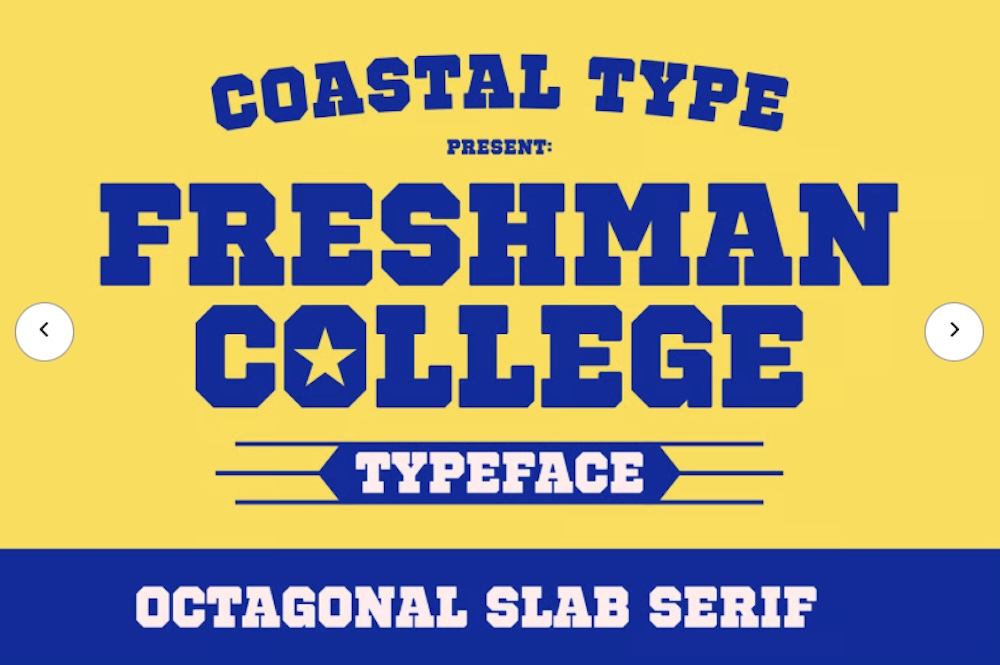
Freshman College feels like it belongs on a varsity banner flapping in the wind during homecoming. With its octagonal slab serifs and geometric strength, it nails that bold, campus-authentic look without relying on clichés. The angular cuts and precise corners give it a bit more attitude than your average athletic font, making it a standout for team branding, vintage-style patches, or any design that needs to channel big energy and bigger school pride.
02. Union College – A Sporty Display Font
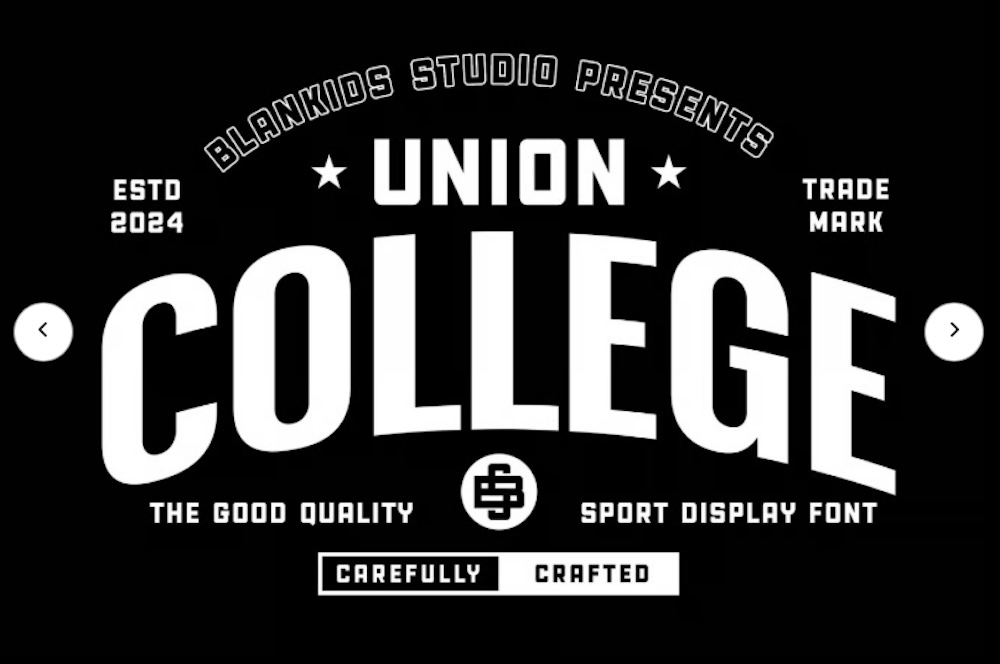
Union College is as sporty as they come. It’s thick, loud, and made to be seen from the top row of the bleachers to the back of a sweatshirt. The tight letterforms pack a punch without sacrificing legibility, giving headlines and logos an instant shot of adrenaline. It leans into its display font DNA with confidence and speed, perfect for sports posters, pep rally flyers, or bold typographic statements.
03. Bullsy College – A Classic Sport Font
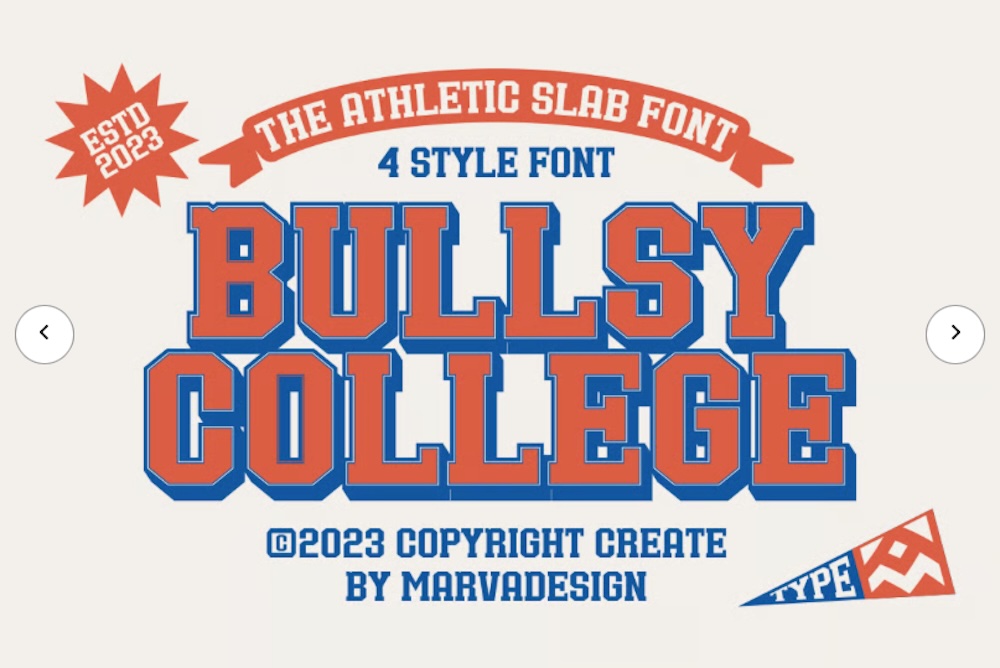
Bullsy College hits that perfect midpoint between vintage athletics and polished design. The soft, rounded slab serifs give it an old-school charm, like something lifted from a retro college pennant or classic baseball jersey. But it’s not stuck in the past. Instead, it’s clean, confident, and easy to pair with modern layouts. Ideal for branding that needs to feel trustworthy, established, and just a little nostalgic without losing its edge.
04. Atlanta College Font
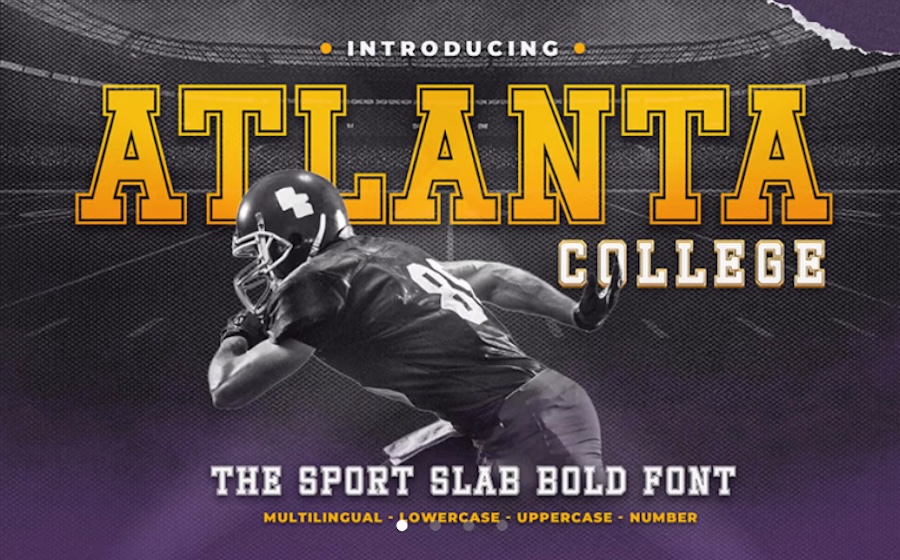
Atlanta College keeps things classic with blocky, all-caps letters and just enough curve to feel collegiate without being stiff. It’s great for team gear, posters, or any layout that needs bold school pride on a budget.
05. College – An Athletic Font Family
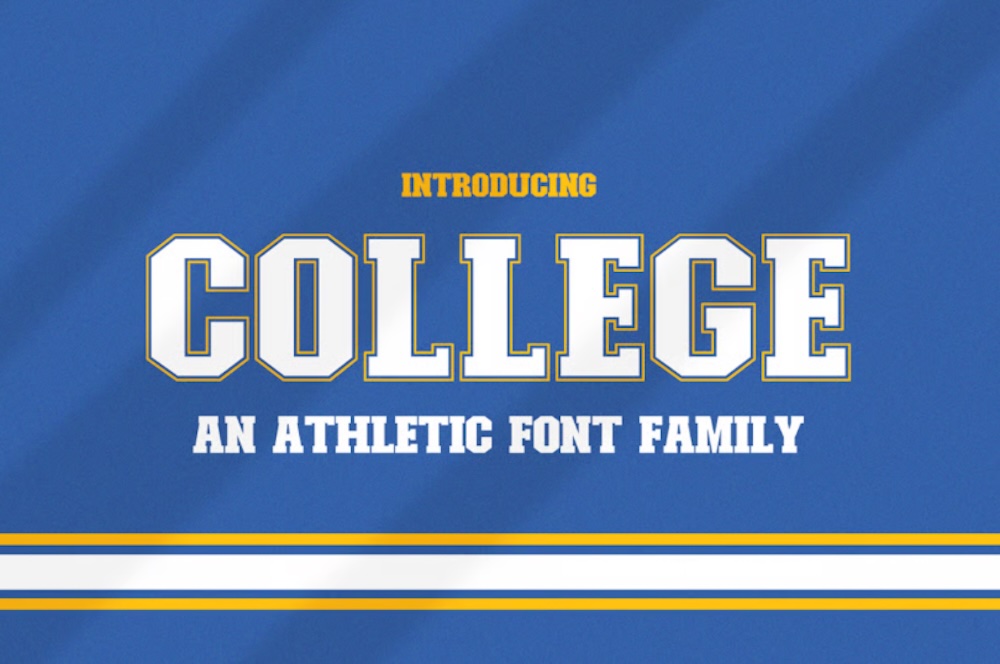
The College font family brings the full varsity treatment with multiple weights and a no-nonsense, squared-off style. Its modular build gives it great adaptability across formats including headers, labels, logos, or monograms all come out looking crisp and confident. There’s nothing flashy here, just the visual equivalent of a perfectly fitted letterman jacket. Dependable, legible, and unmistakably tied to traditional American collegiate design.
06. Scholarly Font
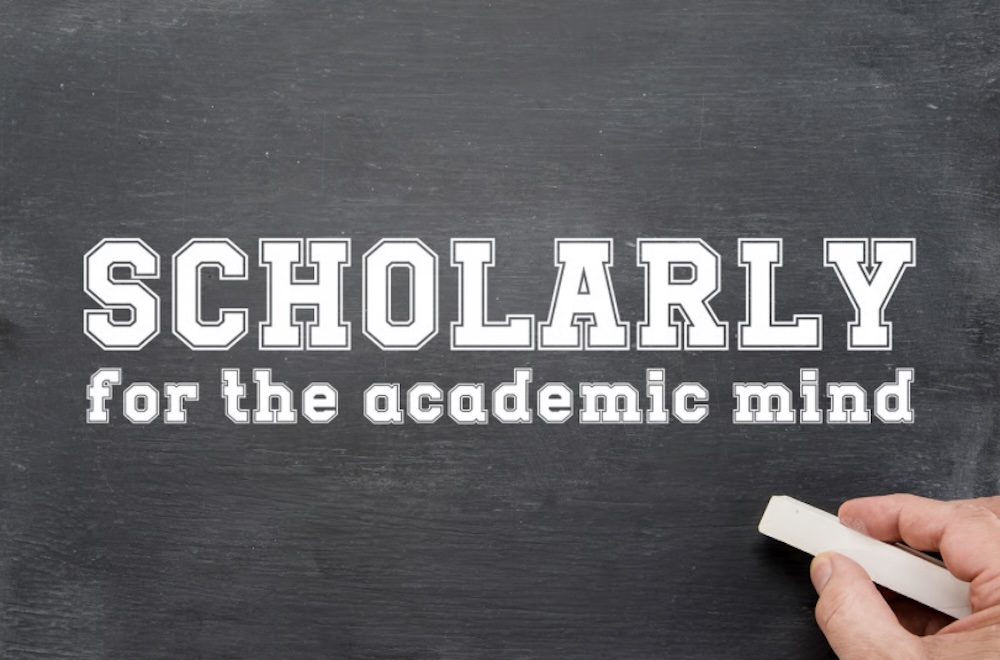
Scholarly trades muscle for intellect, offering a refined serif that feels at home in lecture halls and library stacks. With its classic proportions and subtle elegance, it brings quiet authority to any academic project. It’s less sports bar, more debate club. Sophisticated but accessible. Use it for editorial designs, university websites, or formal event materials when you need a font that says “summa cum laude” without spelling it out.
07. Sports College Brush
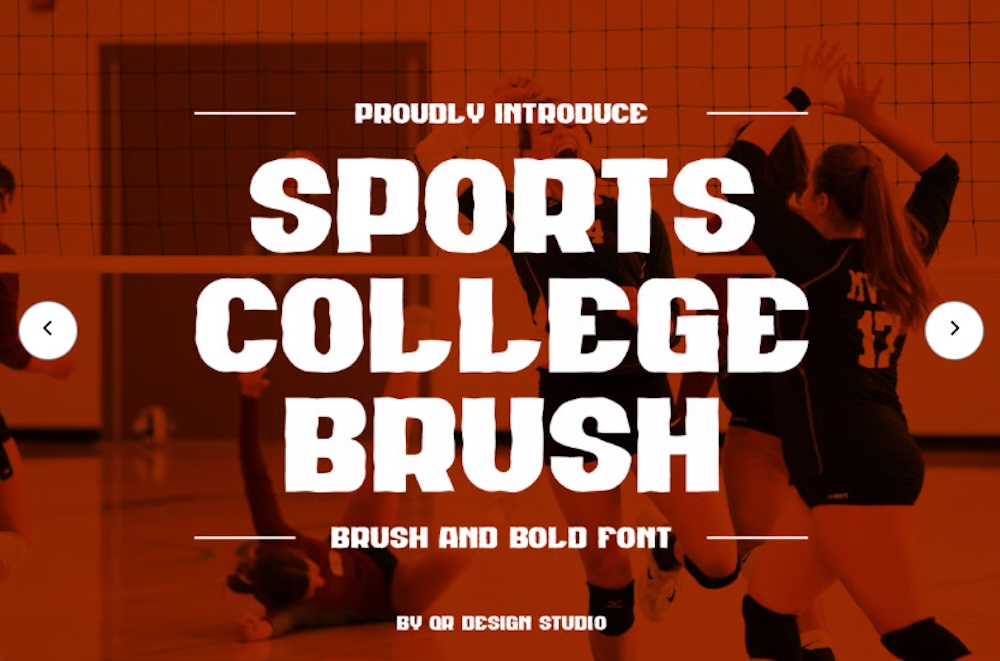
Sports College Brush brings a rough, energetic edge to traditional varsity lettering. It swaps the crisp lines of classic sports fonts for a hand-painted brush texture that feels raw and alive, like it was slapped on a pep rally banner seconds before the team charged in. Ideal for designs that need motion and grit, it’s perfect for sports promos, spirited social graphics, or anything that calls for a little controlled chaos.
08. Academy Font Family
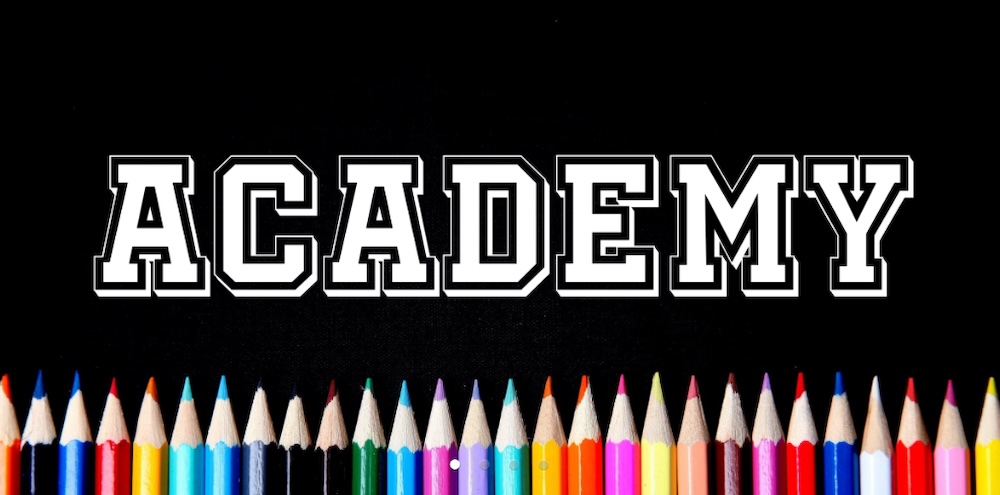
Clean, simple, and super readable, Academy is a versatile serif that brings a bit of authority to the table.Great for coursework covers, educational websites, or anywhere you want a font that says “serious but stylish.” And yes, it’s free.
09. Bourne College – Slab Serif Font
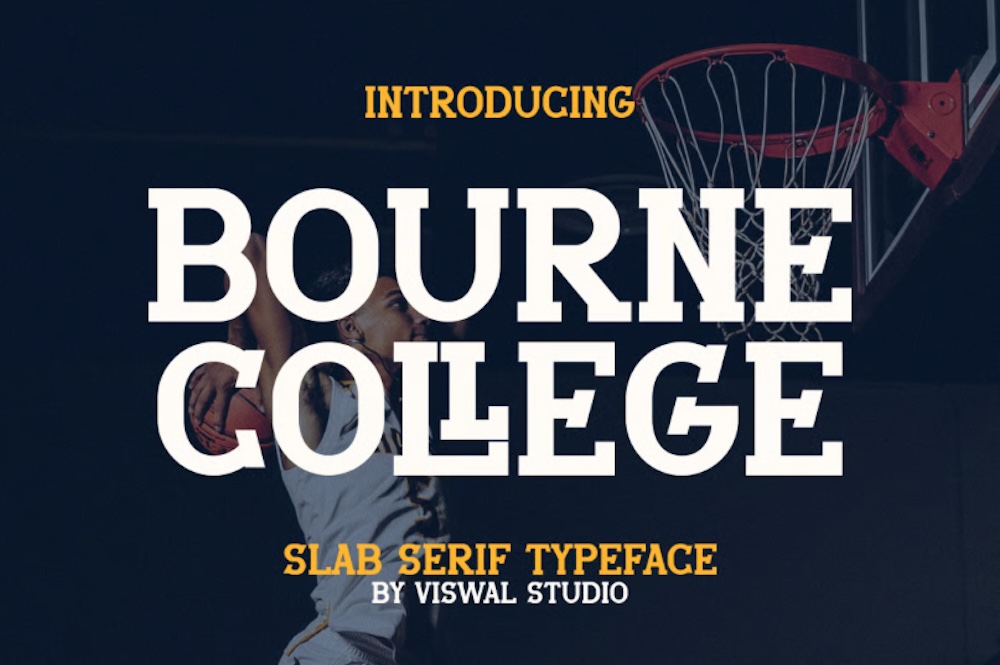
Bourne College plays it cool with a bold slab serif that doesn’t try too hard. There’s a quiet confidence in its heavy strokes and wide-set forms. It brings structure and weight to headlines and logos, with just enough vintage flair to give it character. Great for designs that need to hold their ground and still feel authentically academic.
10. Away Day – Sport Font Family
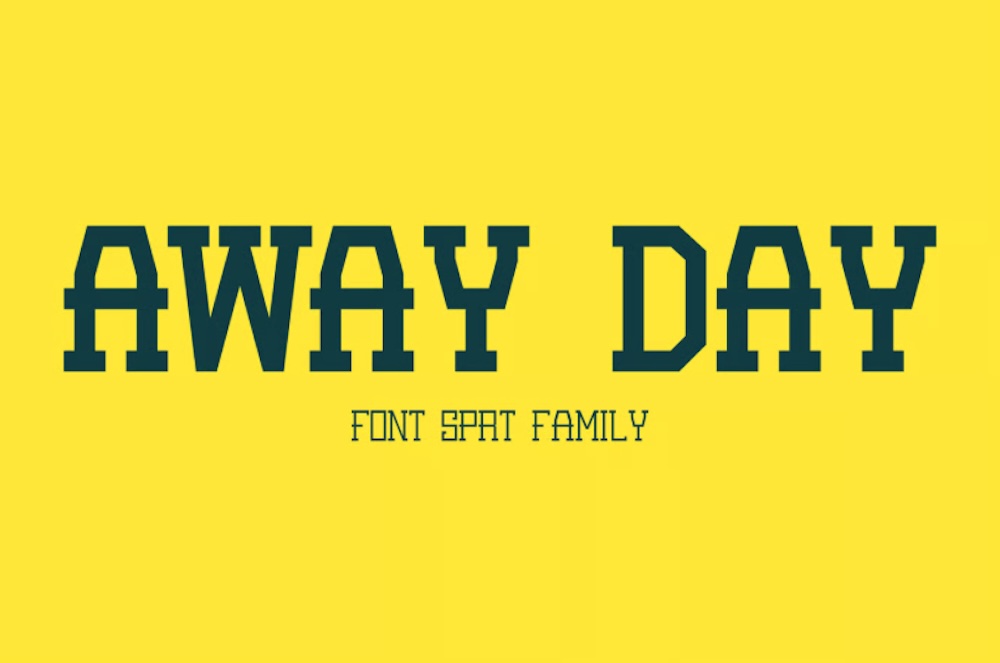
Away Day feels like it belongs on a championship scarf or a roaring crowd banner. It comes with several font variations, giving you room to play depending on the tone: tight and punchy for scores, wider and softer for supporting copy. The letterforms are clean but slightly rugged, with enough personality to fit both print and digital. A solid choice for fan gear, event branding, or anything built around team spirit and motion.
Conclusion: Which of These College Fonts Will You Choose?
From bold varsity slabs to refined academic serifs, each of these fonts captures a different facet of collegiate design. The right pick depends on your project’s tone. Is it classic? Modern? Gritty? Whichever you choose, you’re tapping into a typographic tradition that’s instantly recognizable and full of personality. So have at it!